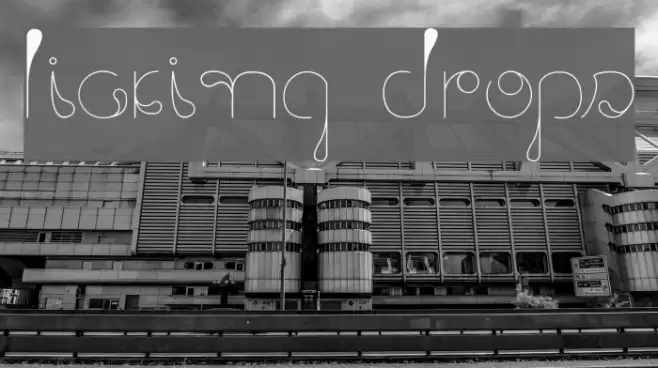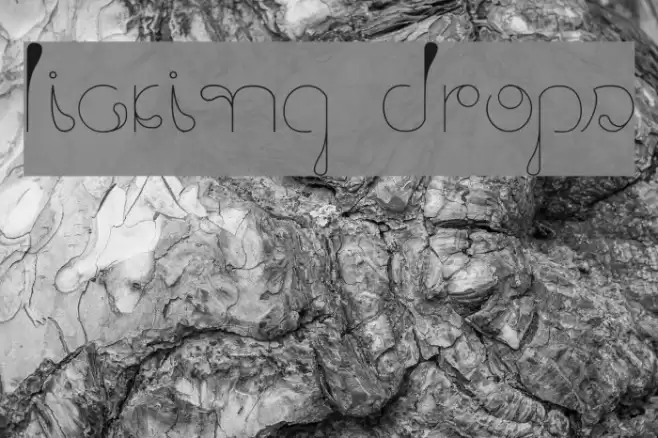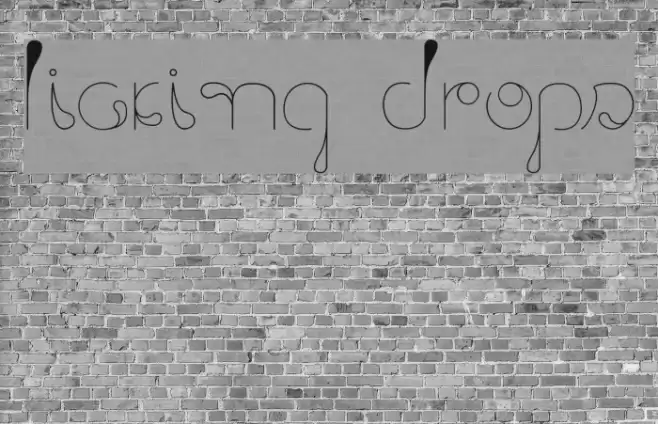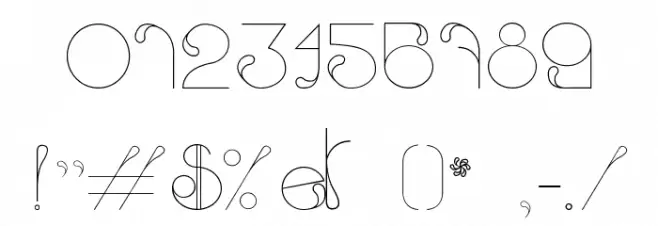
Licking Drops Font
Licking Drops Description
This font features a unique and playful design with a liquid-like appearance, where the strokes of each character seem to drip or melt. The letters are crafted with a combination of thick and thin lines, creating a dynamic and fluid look. The uppercase and lowercase letters maintain a consistent style, with the lowercase letters exhibiting more pronounced droplet-like features. Numbers and special characters follow the same aesthetic, ensuring a cohesive visual experience. The overall design is both whimsical and modern, making it suitable for creative and artistic projects.
A playful, liquid-inspired font with dynamic, dripping strokes from Uncategorized fonts.
- Proposed Projects: Ideal for artistic posters, creative branding, children's book covers, and unique logo designs.
- Overall Style: Modern, Decorative
- Use Case: Logos, Posters, Creative Branding